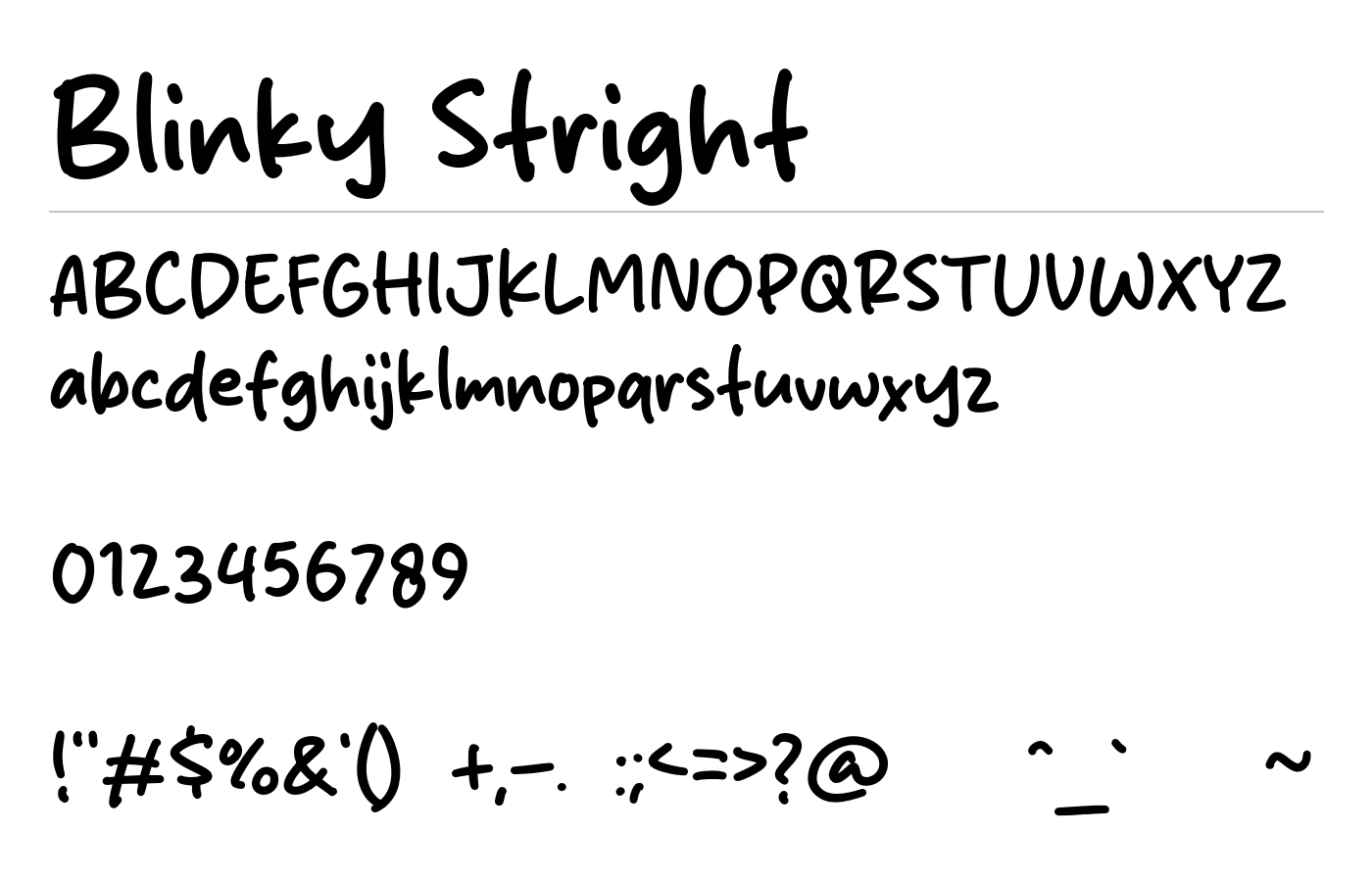
Blinky Stright is a playful, casual handwritten sans-serif font with a friendly and approachable feel. It features lively, slightly irregular letterforms with moderate weight and rounded strokes, making it ideal for informal, creative, or youth-oriented designs. This font works well for branding, posters, and digital content that aims to be fun and relatable.
Blinky Stright Font
About Blinky Stright Font
| Font family | Blinky Stright Font |